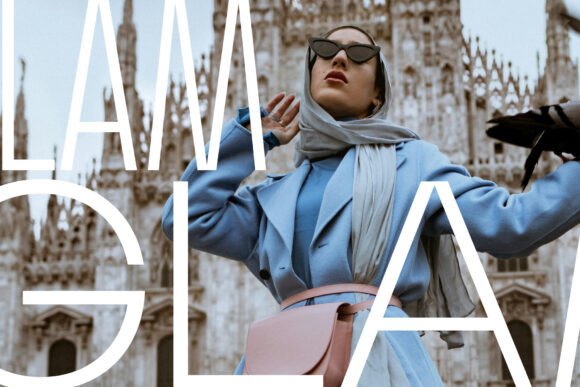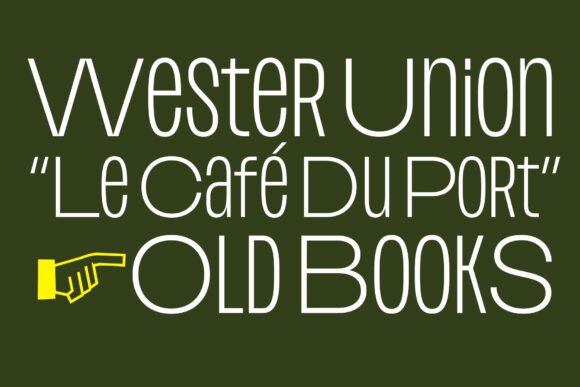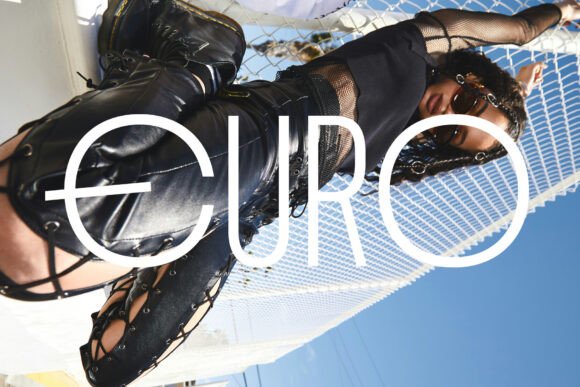
Introduction to Plex Beta Regular Font
Have you ever found yourself staring at a blank page, struggling to bring your creative vision to life? For many designers, this moment is a familiar feeling. But what if you had the perfect tool to elevate your work and make it shine? Enter the Plex Beta Regular Font, a game-changing typeface that’s about to revolutionize the way you approach your creative projects.
With its minimalist, clean design and effortless modern flair, the Plex Beta Regular Font is the perfect companion for any high-quality project. Its balanced letterforms and even spacing make it ideal for both body text and branding purposes, ensuring that your message is conveyed with clarity and precision. Whether you’re working on a print or digital project, this versatile font delivers consistency and sophistication with every use.
Plex Beta Regular Font
- High-quality design: This font is designed to provide a high-quality look and feel, suitable for various creative projects, including graphic design, digital art, and more.
- Transparent background: The font features a transparent background, allowing for easy layering and manipulation in design applications.
- Unique characteristics: The Plex Beta Regular Font features a unique, modern design aesthetic with a subtle geometric flair, making it an excellent choice for creative projects that require a distinctive look.
- Design versatility: The font is highly versatile and can be used in a variety of design contexts, from digital displays to print materials, making it a valuable addition to any designer’s toolkit.
Honest Review: Plex Beta Regular Font
I recently stumbled upon the Plex Beta Regular Font, and I must say it’s been a game-changer for my creative projects. The high quality of this font is evident from the first glance, making it an excellent addition to any design resource.
- ✨ Versatility: The Plex Beta Regular Font can be used for a wide range of creative projects, from typography to logos and even web design.
- ✨ Transparent background: The transparent background of this font allows for seamless integration with any design, giving it a professional and polished look.
- ⚠️ Limited character set: While the font itself is high quality, the character set is somewhat limited, which may not be suitable for complex designs or projects that require a wide range of characters.
- ⚠️ Not ideal for body text: Due to its unique design, the Plex Beta Regular Font may not be the best choice for body text, as it can be difficult to read in large quantities.
Overall, I’m impressed with the Plex Beta Regular Font and would highly recommend it as a design resource. While it may have some limitations, its high quality and versatility make it an excellent choice for creative projects.
Plex Beta Regular Font
The Plex Beta Regular Font is a high-quality design resource that can add a unique touch to your creative project. With a transparent background, this font is perfect for creating eye-catching graphics and text overlays.
To get the most out of the Plex Beta Regular Font, try using it in combination with other high-quality design resources. Experiment with different font sizes, colors, and layouts to find the perfect look for your project.
The Plex Beta Regular Font is perfect for a variety of creative projects, including:
- UI/UX design